Knowing your audience is one of the most important aspects of a successful marketing campaign.
Knowing the preferences, age, and other demographics of your target market will help you choose colors, images, and certainly the right fonts for your designs.
If your audience happens to be from the younger generations, finding the perfect font is just as important as for older generations. Freestyle and adventurous, the following fonts will make your ads or marketing collateral appealing to the young population. Represented by mostly clean and uncluttered lines, they convey simplicity, yet confidence that can attract both the young and young at heart. Best of all, each one listed is free, but be sure to check out the designers’ Terms of Use before using them in commercial designs.
Green Piloww Font
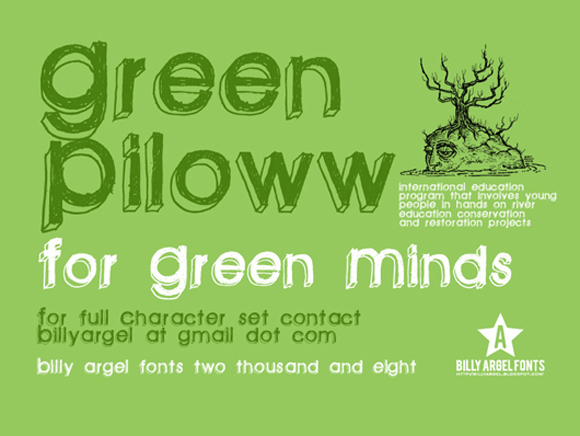
Chocolat Bleu
Tiza Font
Mountains of Christmas
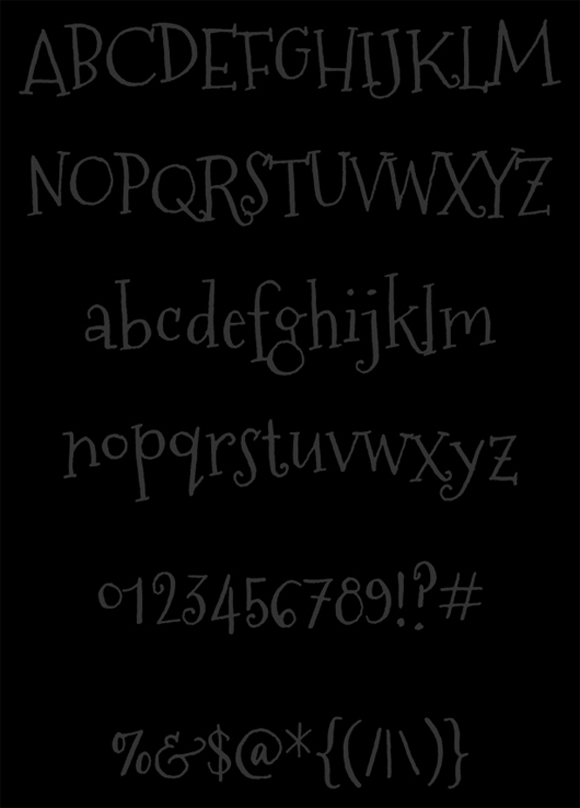
The Quiet Scream
Alfred24
Collegiate Norm
Octin College
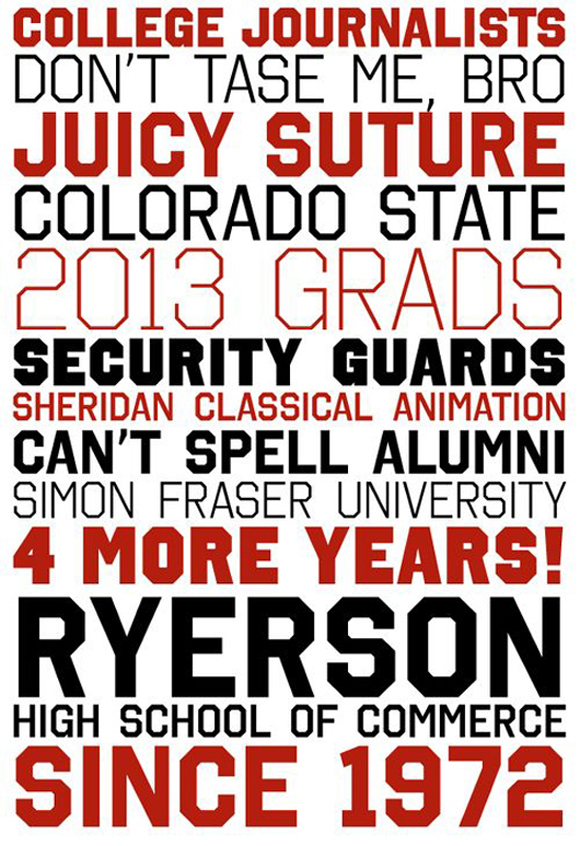
Katy Berry
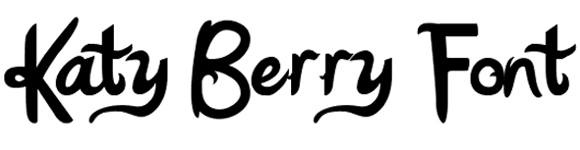
Island of Misfit Toys
Burnstown Dam
Carnival MF
Walt Disney Script
Chicken Butt
Pink Panda
PokÈman Font
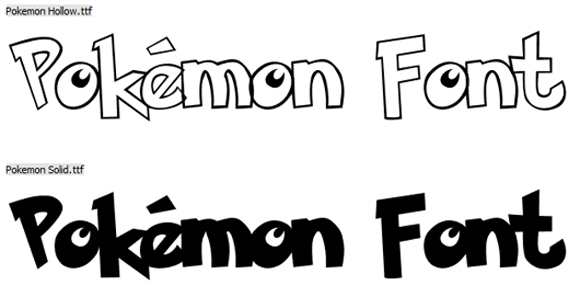
Liquidism
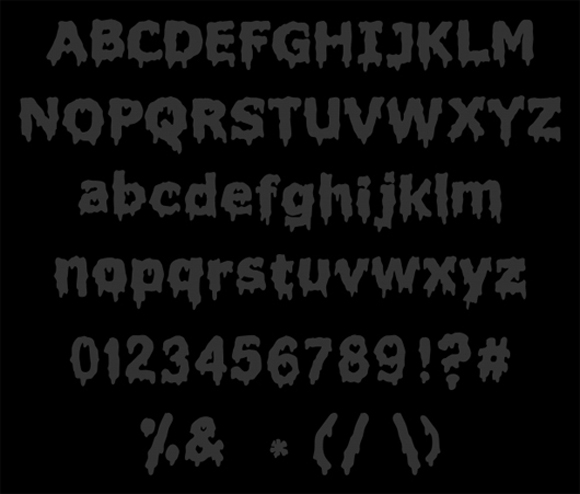
Cookies
Comicbook Smash
FZ Warped 19